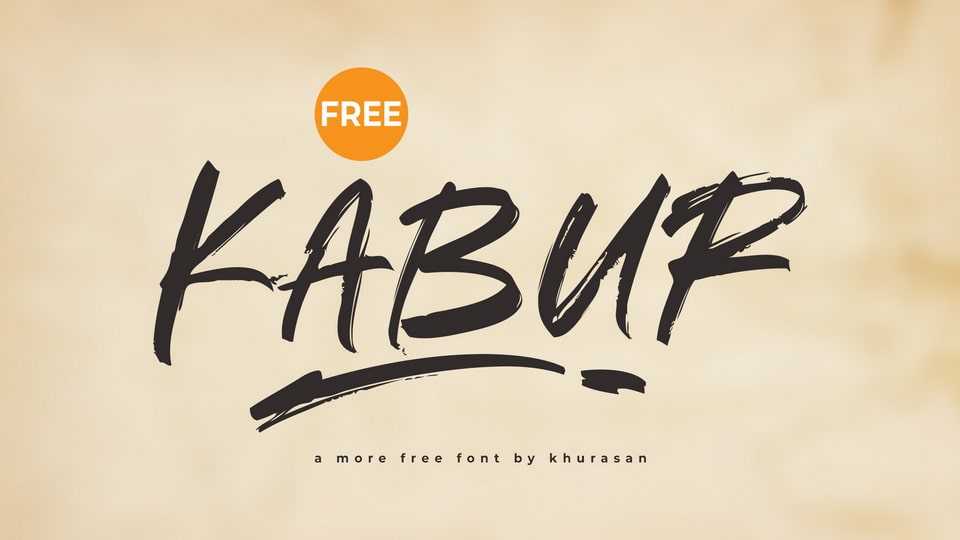
Download Kabur font, a dynamic and energetic hand-painted brush typeface with bold, textured strokes that bring a sense of movement and intensity to your designs.